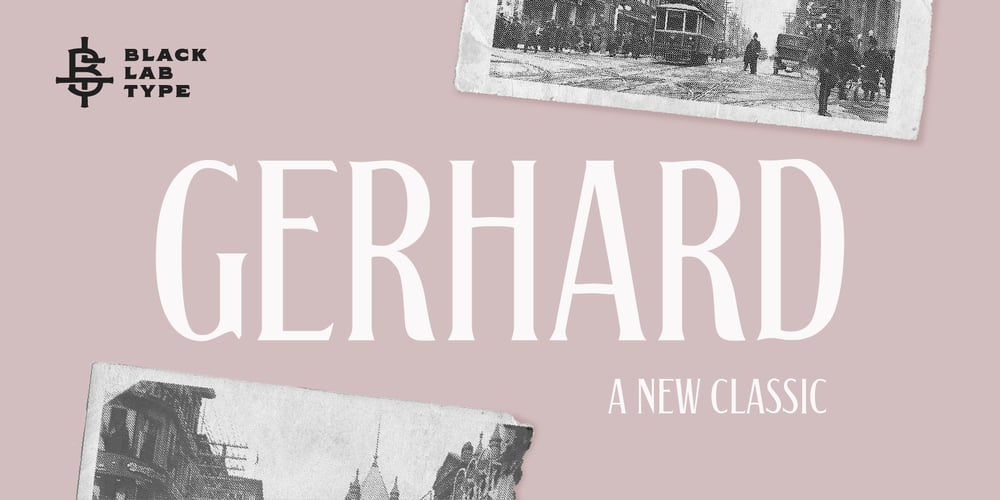
BLT Gerhard Font Family was designed by Kenny Li and published by Black Lab Type. BLT Gerhard contains 1 styles and family package options. Gerhard is an early 1900’s Victorian style typeface that has been carefully refined for today. It was inspired from delicately hand painted lettering on a century-old vintage piano. This typeface has an bold and elegant natural aesthetic that can work for eye-catching headlines yet work gracefully enough for wedding invitations. Small caps have been designed for sub headings and allow a visual difference. Put it to use on your next branding, signage or publication project. A number of glyphs and diacritics included make this typeface usable for a wide number of languages. Alternate letters and forms have been included to create some versatility with your design.